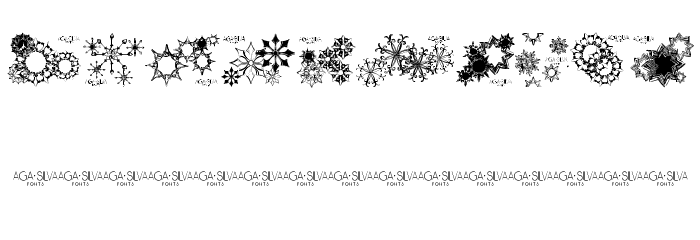
GlitterPROMO Font
This font features an intricate and decorative style, characterized by elaborate and ornate patterns that resemble snowflakes or starbursts. Each character is crafted with detailed embellishments, making it highly decorative and visually striking. The font is designed to capture attention with its unique and artistic flair, suitable for projects that require a touch of elegance and creativity. The intricate designs within each character suggest a handcrafted quality, making it ideal for special occasions or artistic endeavors.
An ornate and decorative font with intricate, snowflake-like patterns.
- Proposed Projects: Ideal for wedding invitations, holiday cards, artistic posters, and decorative branding.
- Use Case: Logos, Headlines, Artistic projects